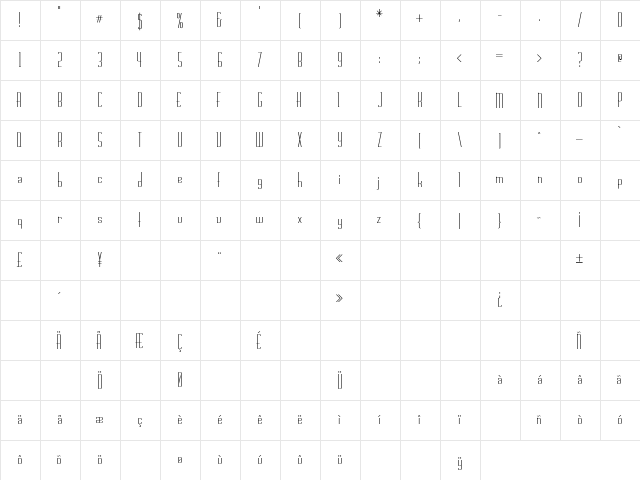
Charlesline Regular Font Preview
Charlesline Regular
Design Context for Charlesline Typeface
Charlesline offers clean, dependable letterforms without strong stylistic allegiance, making it a practical choice for designers who need flexibility.